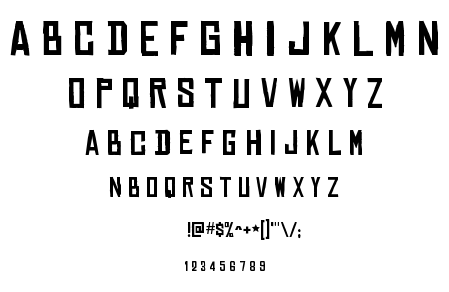
A marvellous idea for a font that was inspired by stenciled lettering on imported merchandise containers. Chinese Rocks looks like it was a hand cut rubber stamp, used about a million times. Uneven line thickness and odd stem widths combine with sharp corners to create the effect of letters cut out with a box knife in a hurry.